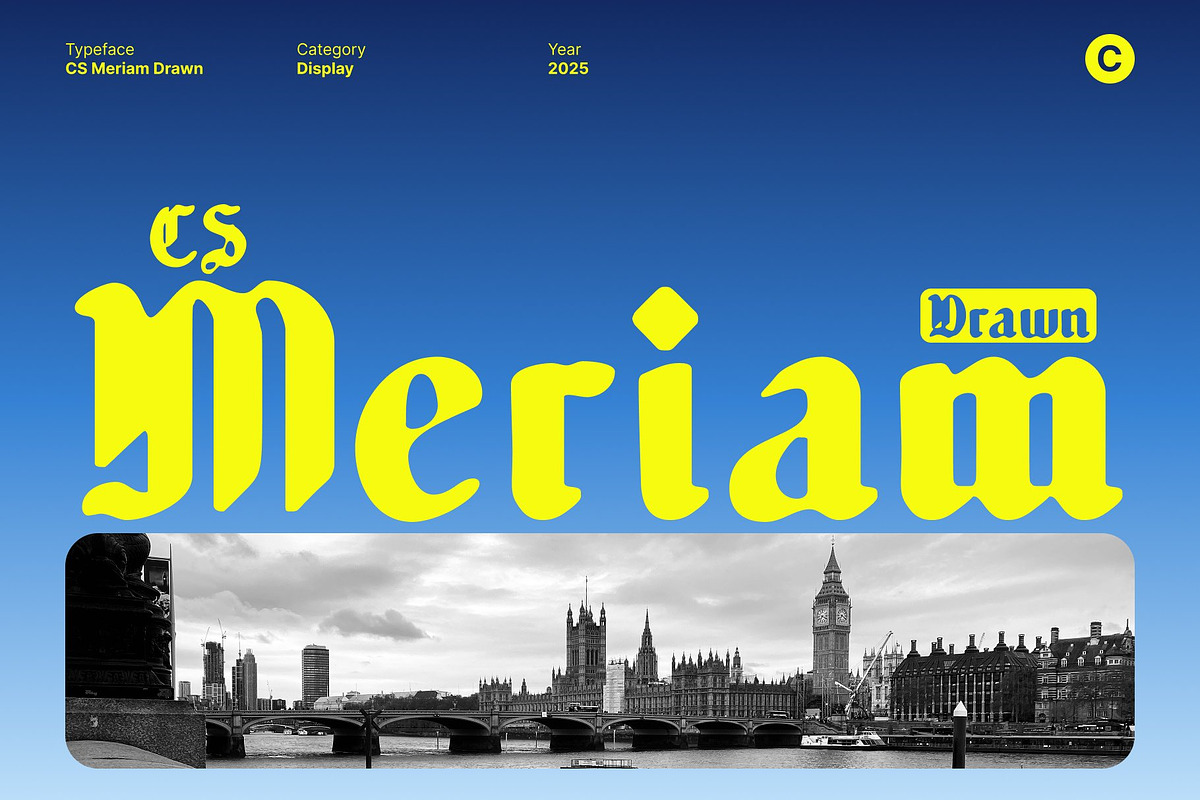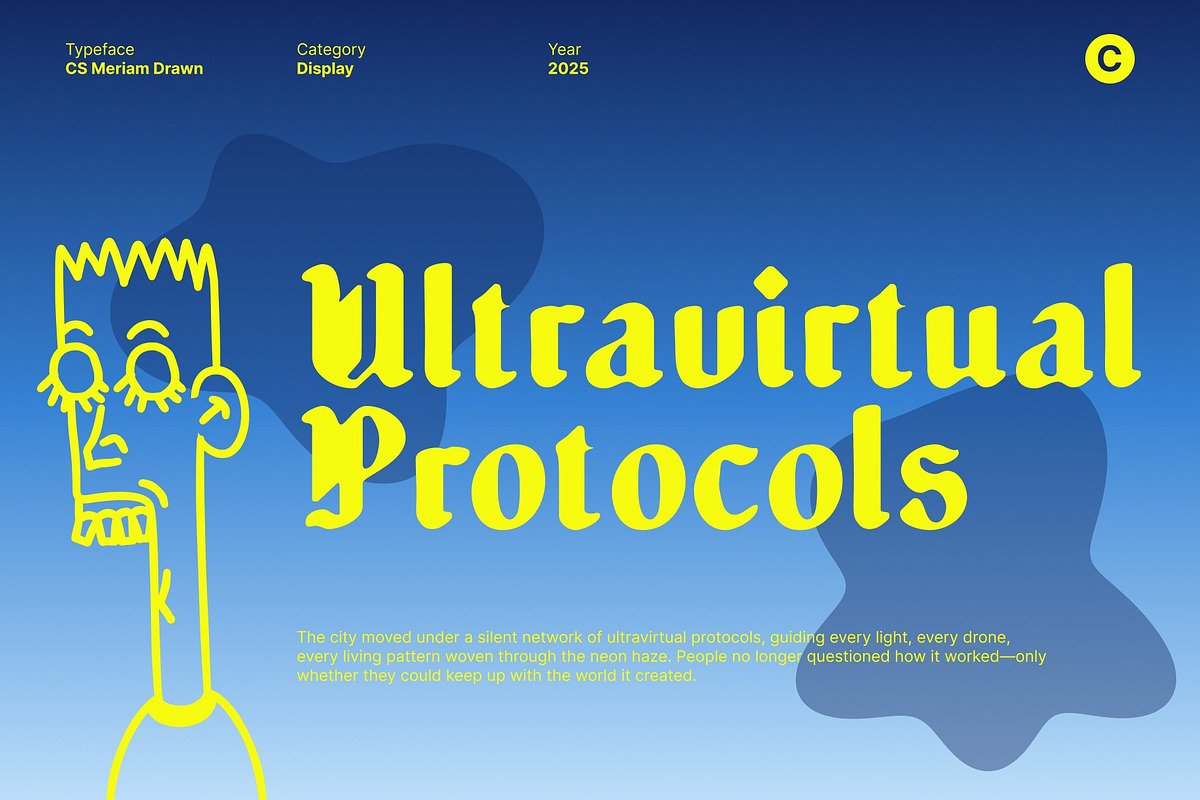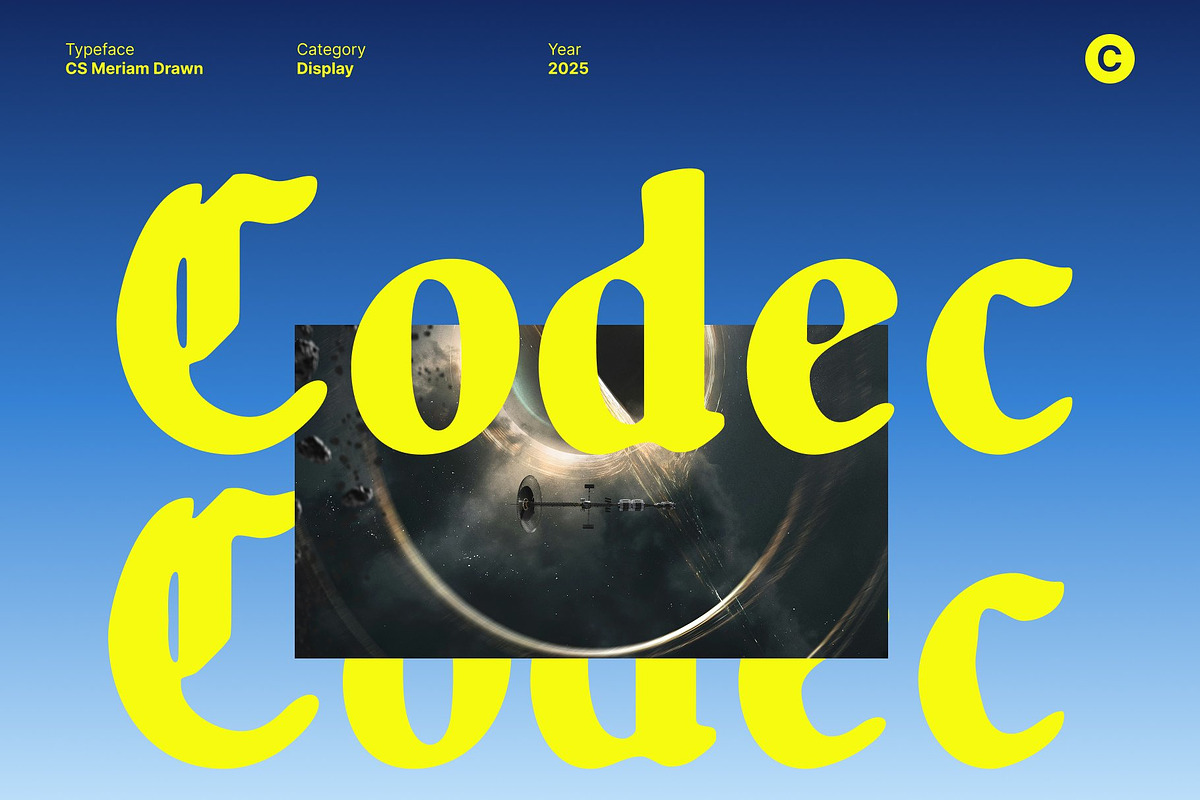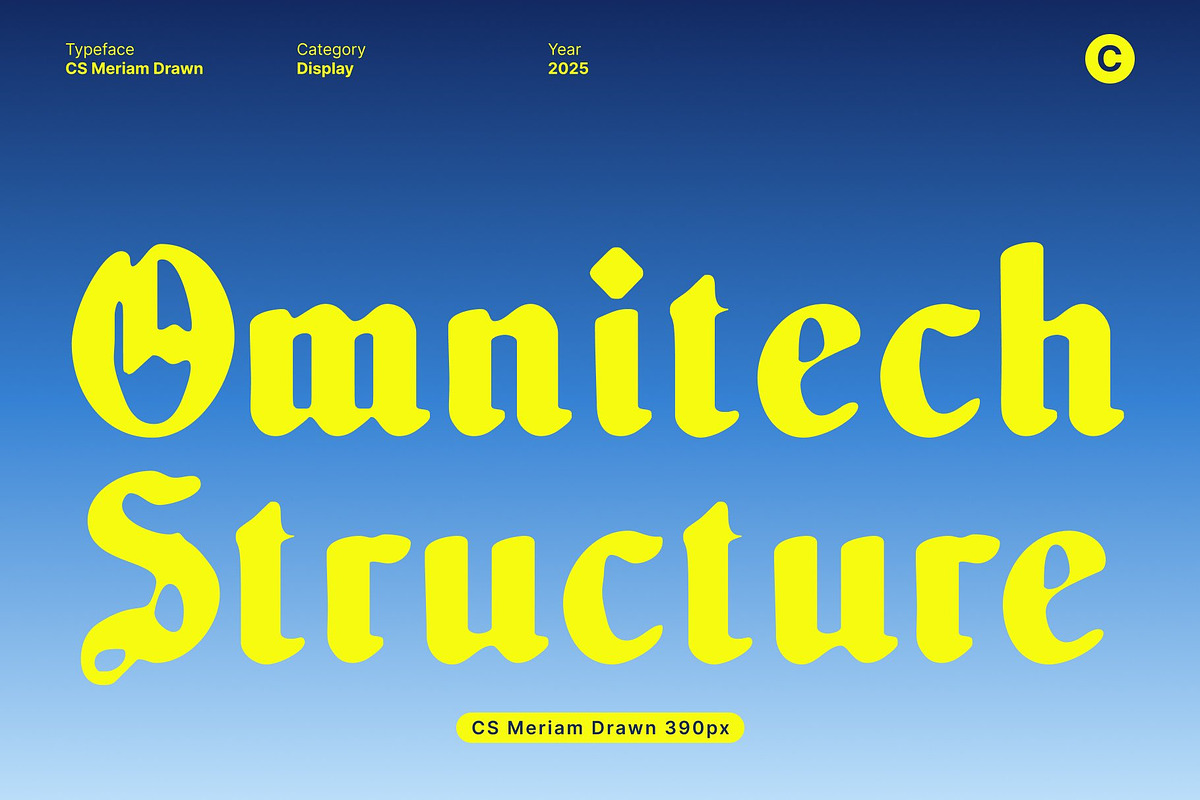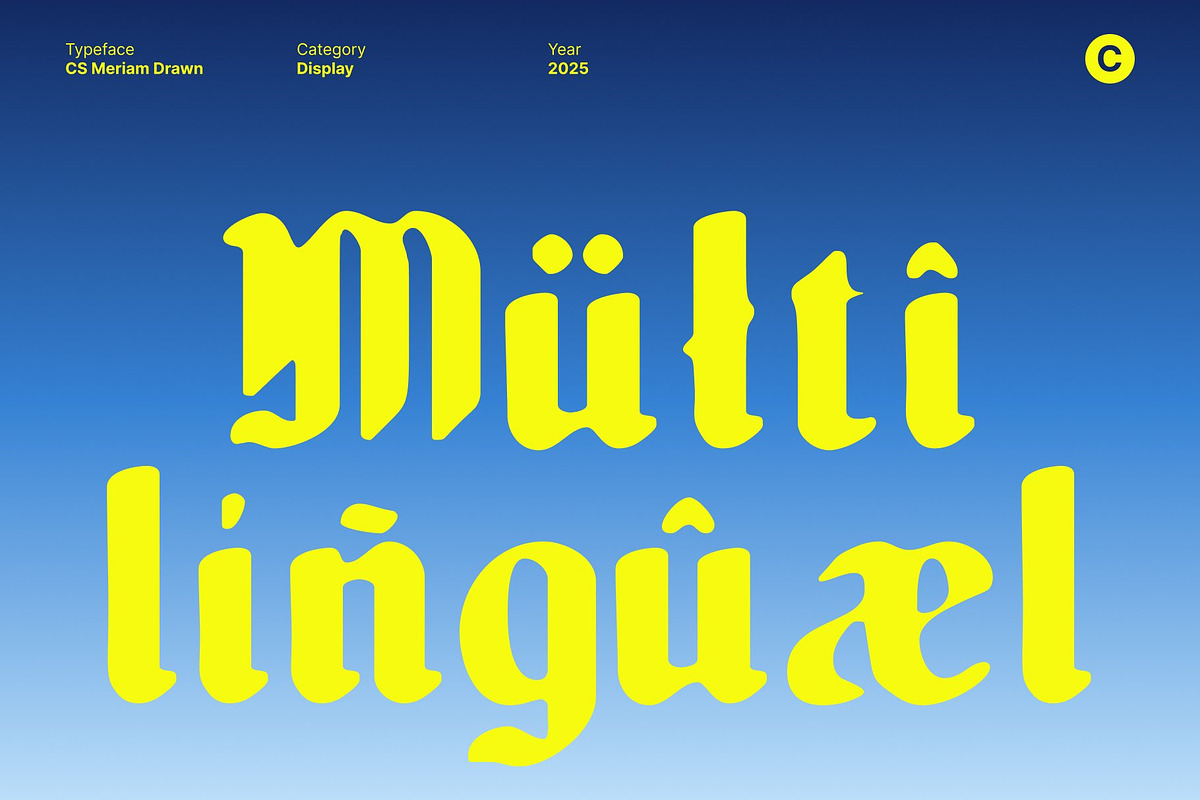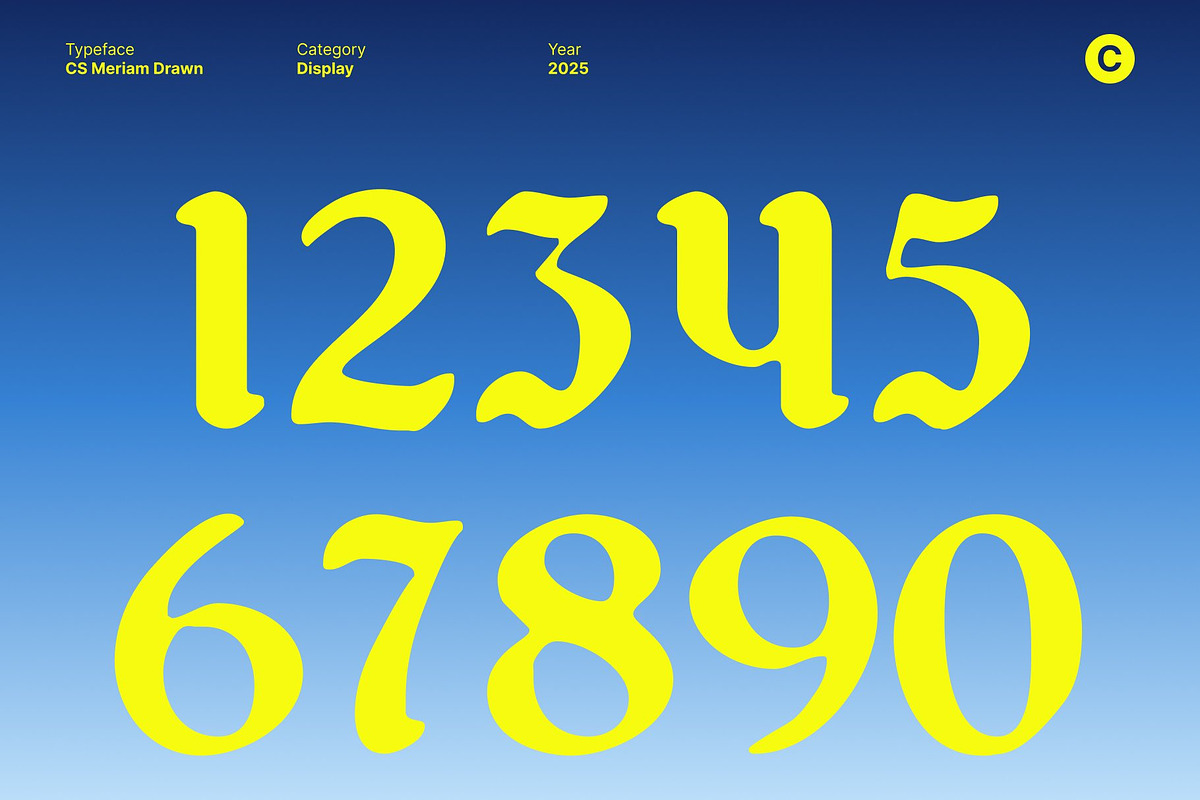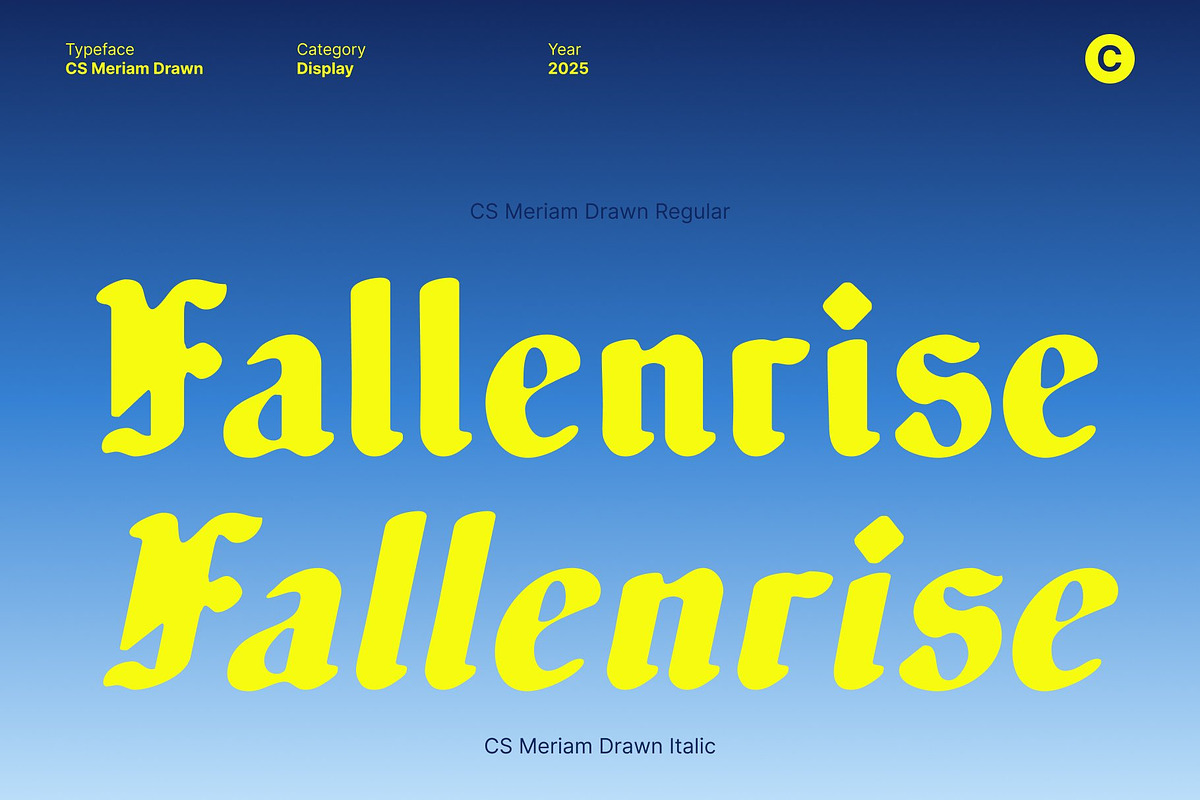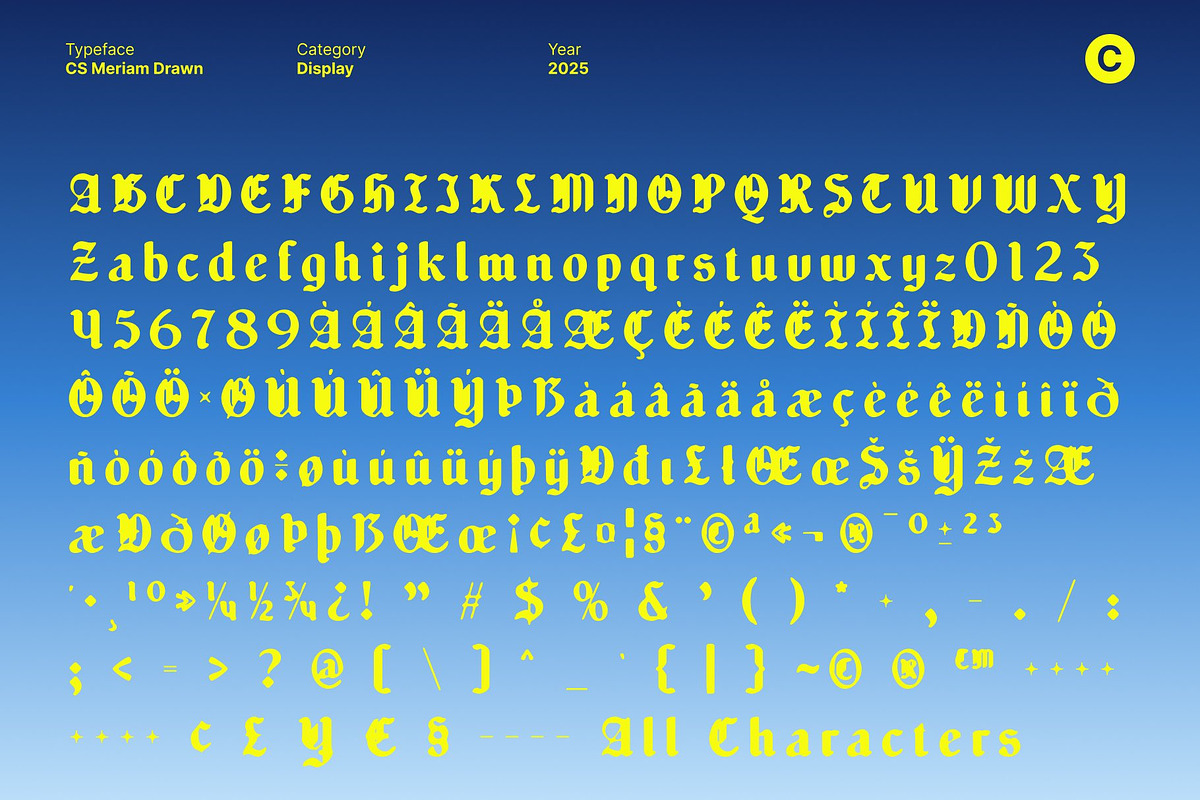
CS Meriam Drawn
CS Meriam Drawn – Bold Blackletter Display Font with Handmade Texture
Bold Blackletter Forms with Dramatic Presence This is a Blackletter display font designed to command attention with bold, soft strokes that create a strong yet approachable presence. Its classic Blackletter structure evokes tradition and authority, while maintaining readability and style. Ideal for designers seeking a font with personality and impact, delivers an instantly recognizable, dramatic aesthetic.
Hand-Drawn Texture for Artistic, Unique Character Enhancing its bold design, features a hand-drawn texture that adds depth, warmth, and a tactile, artistic quality. Each letter carries subtle irregularities that give it a handcrafted feel, amplifying its unique personality. This texture makes the font feel alive, expressive, and distinct, perfect for projects that demand originality and character.
Classic Yet Distinctive Blackletter Aesthetic While rooted in traditional Blackletter style, introduces a modern, artistic twist with its soft, expressive strokes and drawn texture. The combination of classic structure and contemporary handmade detail creates a font that feels timeless yet fresh, suitable for a wide range of creative applications.
Perfect for Book Covers, Posters, and Bold Branding This font excels in display settings that require strength, style, and uniqueness. From striking book covers and posters to distinctive branding and editorial projects, this font brings drama, elegance, and artistic flair. Its handcrafted texture and bold Blackletter forms ensure your designs feel both classic and unforgettable, making every project visually compelling and memorable.
- CS Meriam Drawn Regular
- CS Meriam Drawn Italic